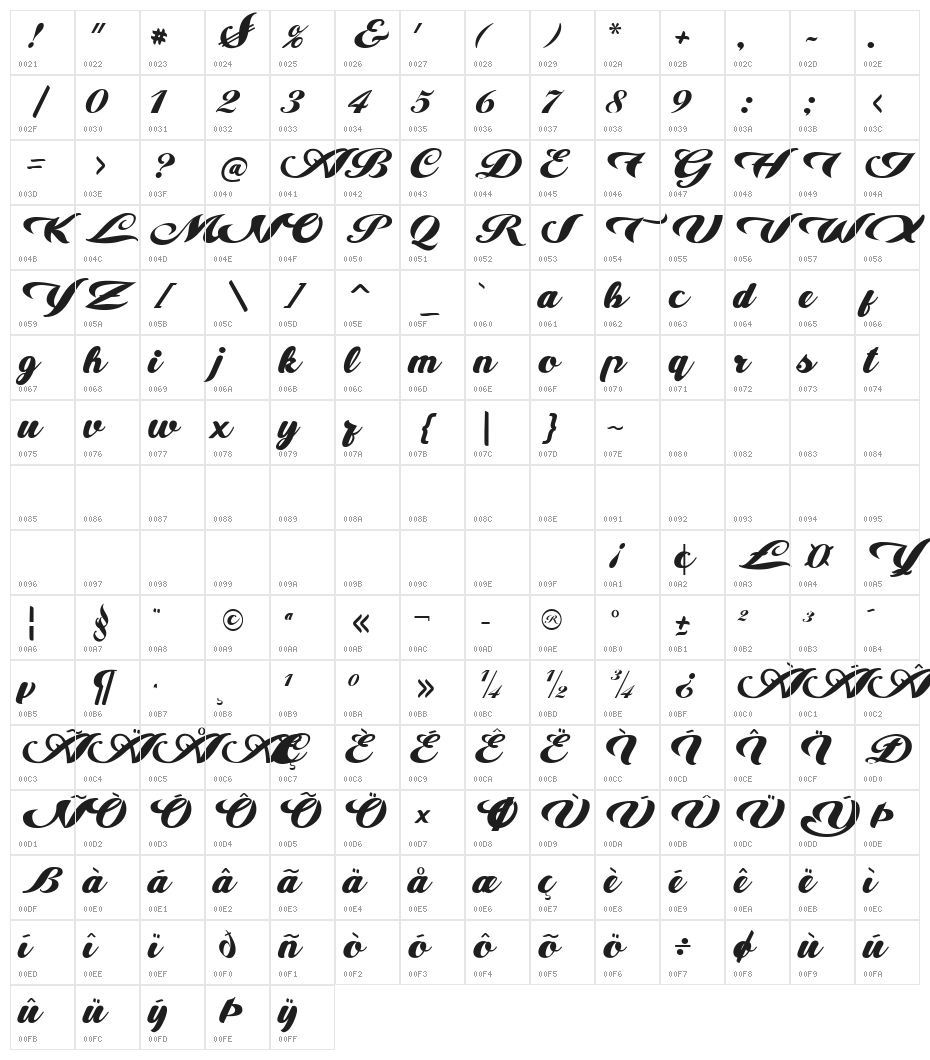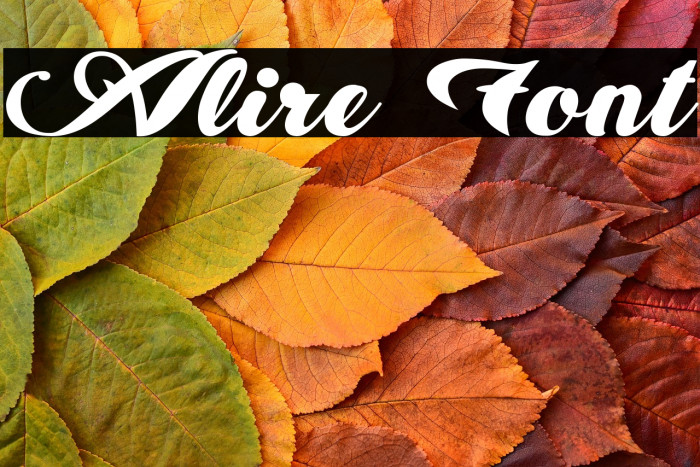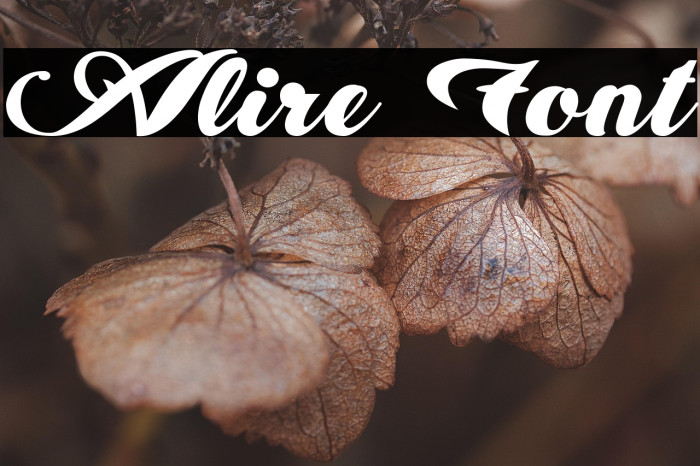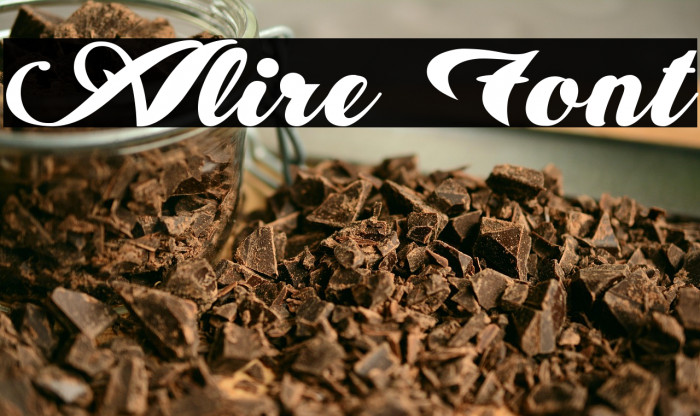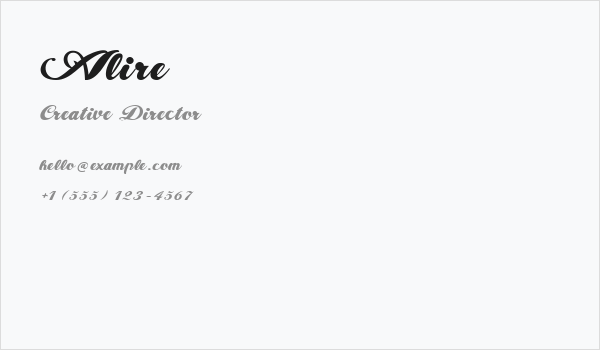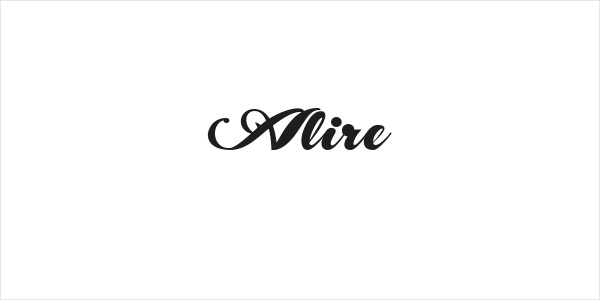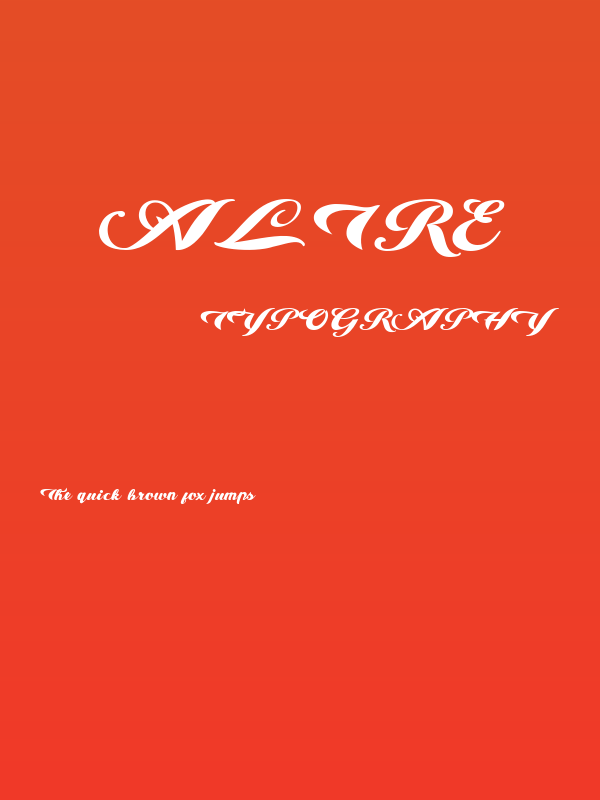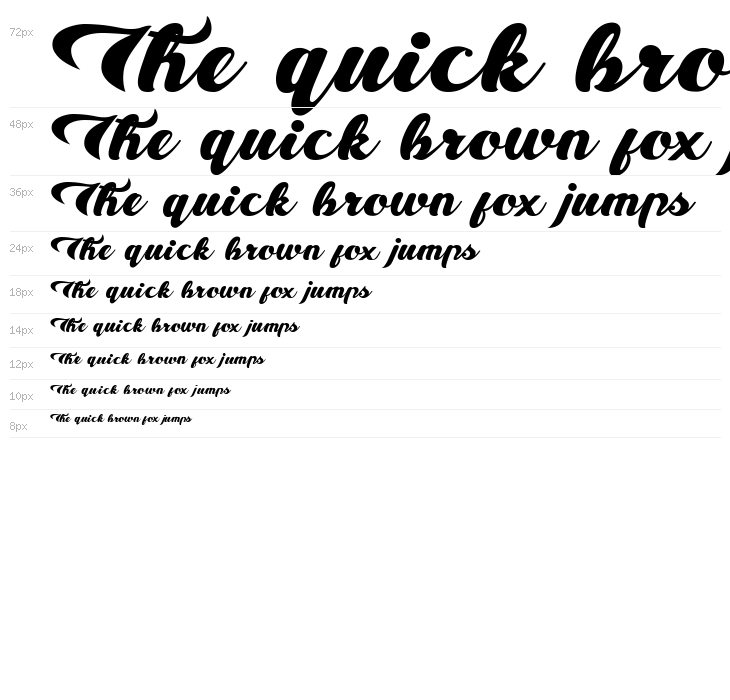
Alire Font
Alire Description
This font exudes a bold and elegant script style, characterized by its flowing, cursive letters that convey a sense of sophistication and flair. The uppercase letters are particularly ornate, with intricate swirls and flourishes that add a decorative touch. The lowercase letters maintain a consistent flow, enhancing readability while retaining an artistic flair. Numbers and special characters are crafted with the same attention to detail, ensuring a cohesive look across all text elements. The font's bold weight and high contrast between thick and thin strokes make it stand out, ideal for making a statement in any design.
| Proposed Projects | Ideal for wedding invitations, luxury branding, elegant packaging, and decorative headlines. |